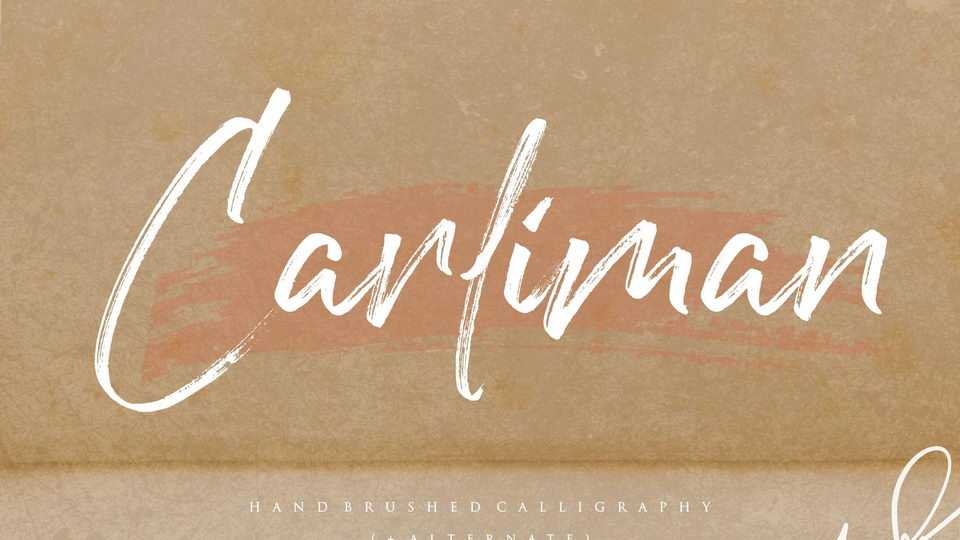
Download Carliman font, a handbrushed calligraphy typeface. Carliman is perfect for product packaging, branding project, magazine, social media, wedding, or just used to express words above the background.